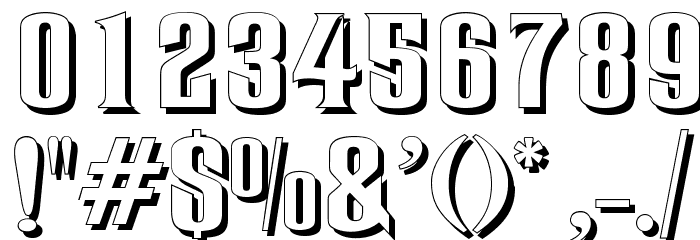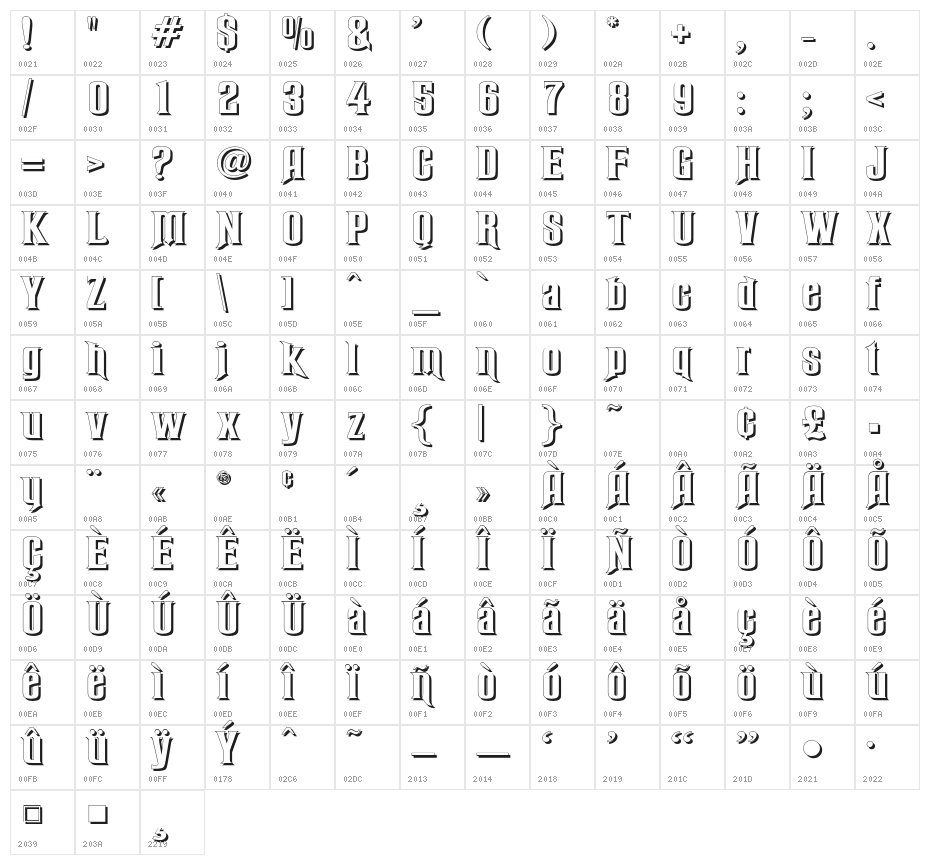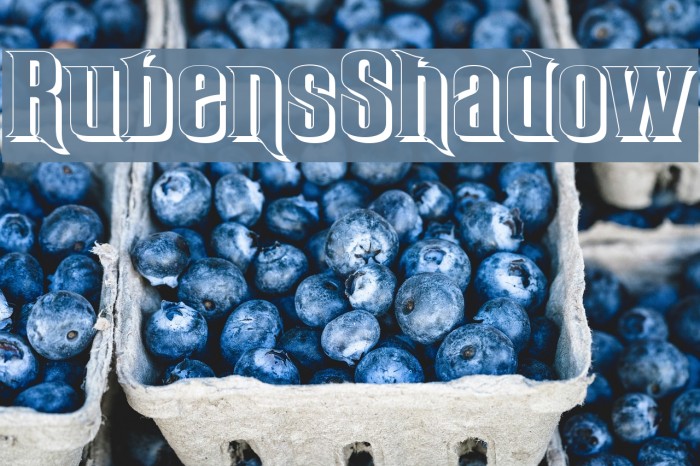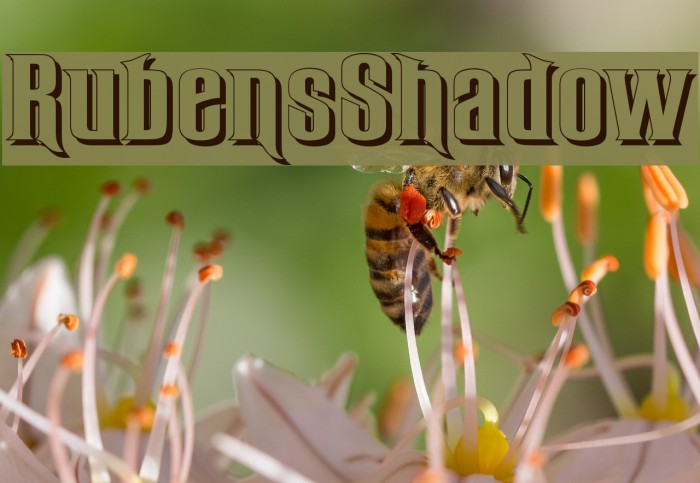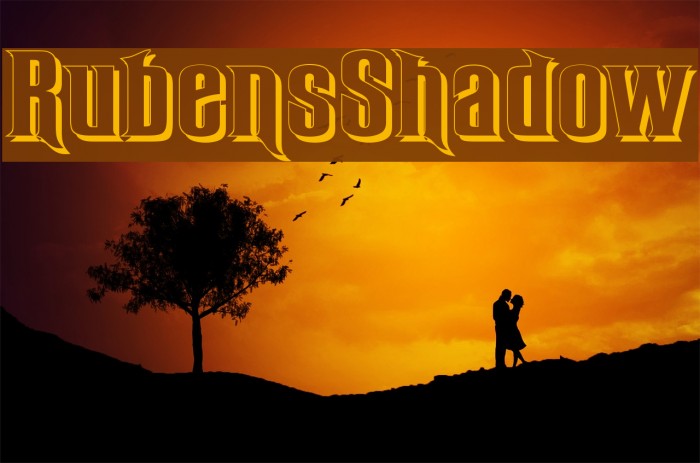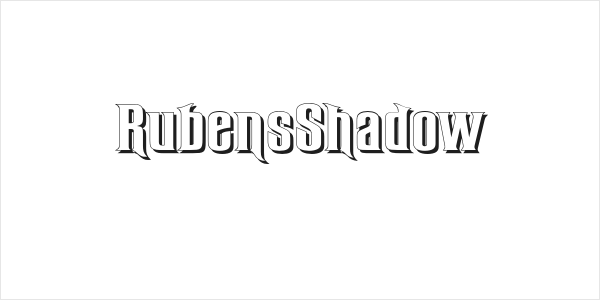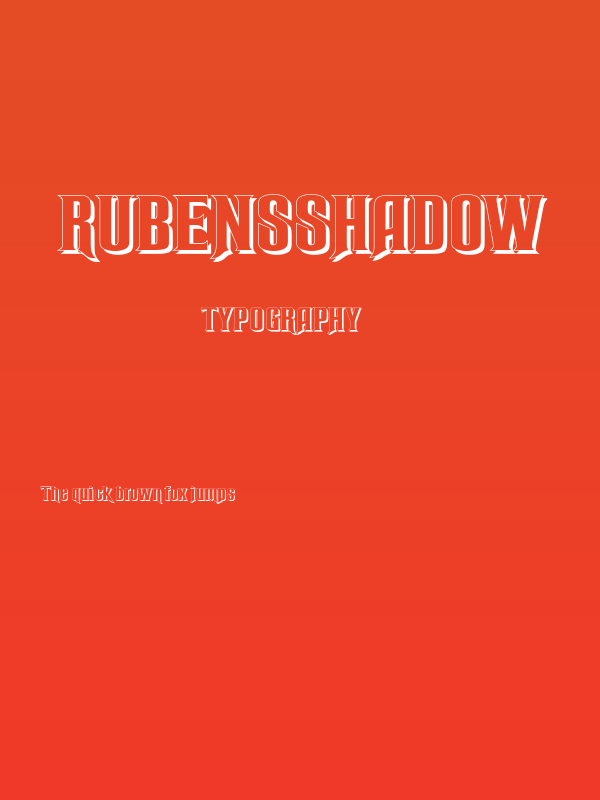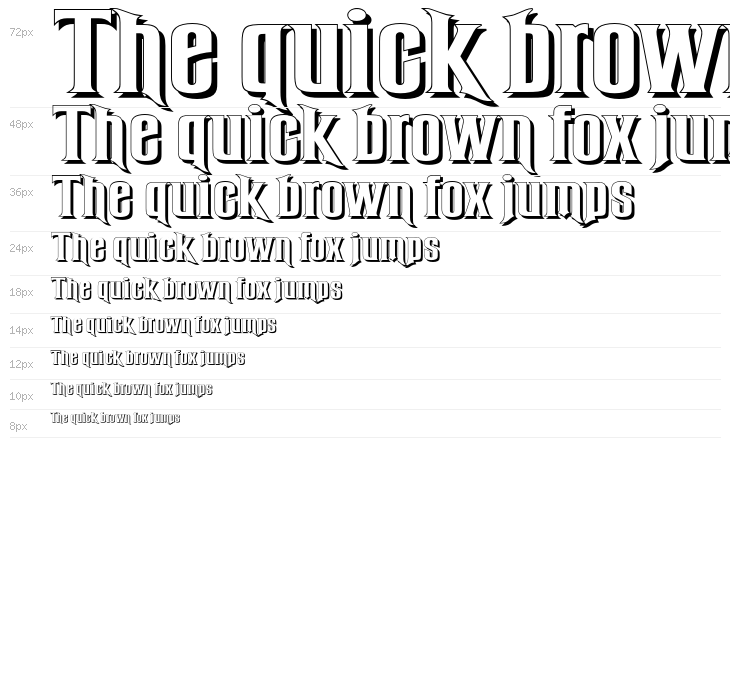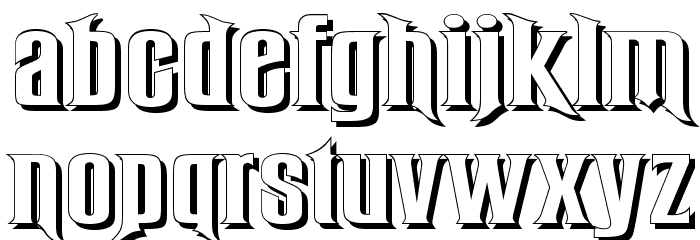
RubensShadow Font
RubensShadow Description
This font features a bold and dramatic style with a distinct shadow effect that gives it a three-dimensional appearance. The uppercase letters are tall and imposing, with sharp serifs and a slight inward curve at the top, adding a touch of elegance. The lowercase letters maintain the boldness of the uppercase, with a consistent shadow that enhances the depth and visual interest. The numerals are equally bold, ensuring readability while maintaining the overall aesthetic. Special characters are designed with the same attention to detail, making them a perfect match for the rest of the font. This font is ideal for projects that require a strong, eye-catching typeface with a classic yet modern twist.
| Proposed Projects | Ideal for posters, headlines, logos, and branding materials that require a striking and memorable typeface. |